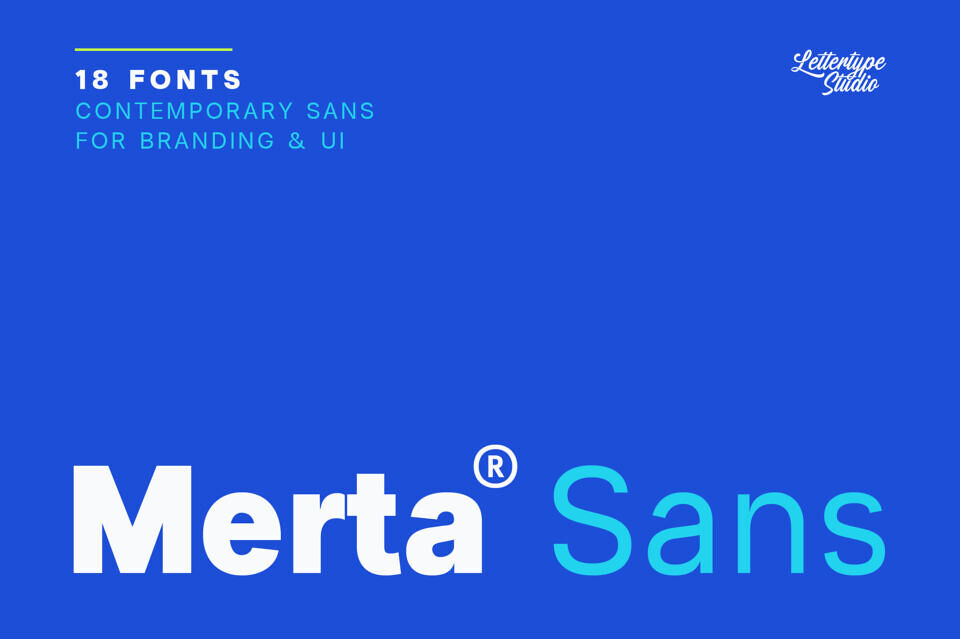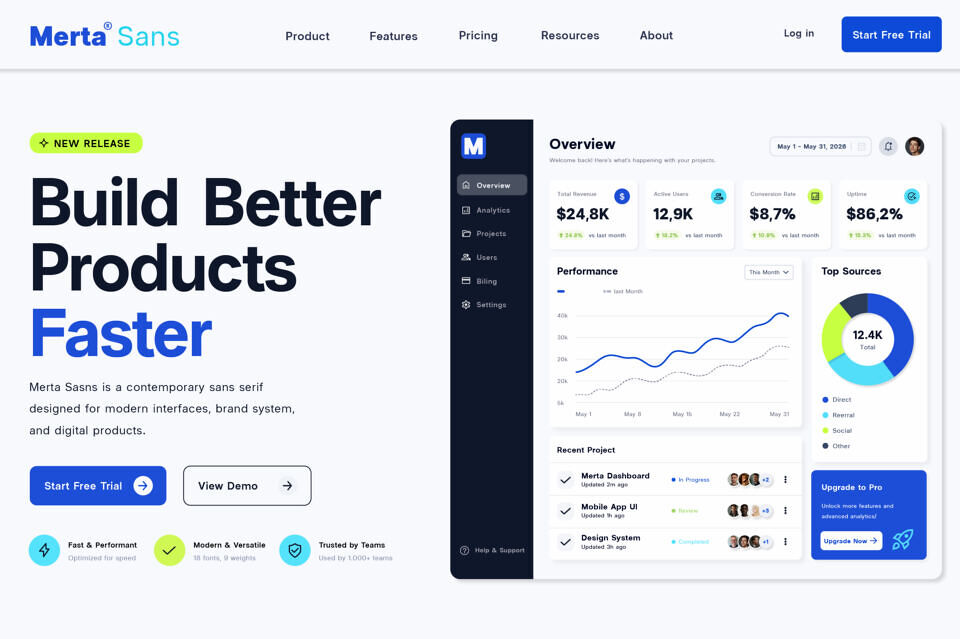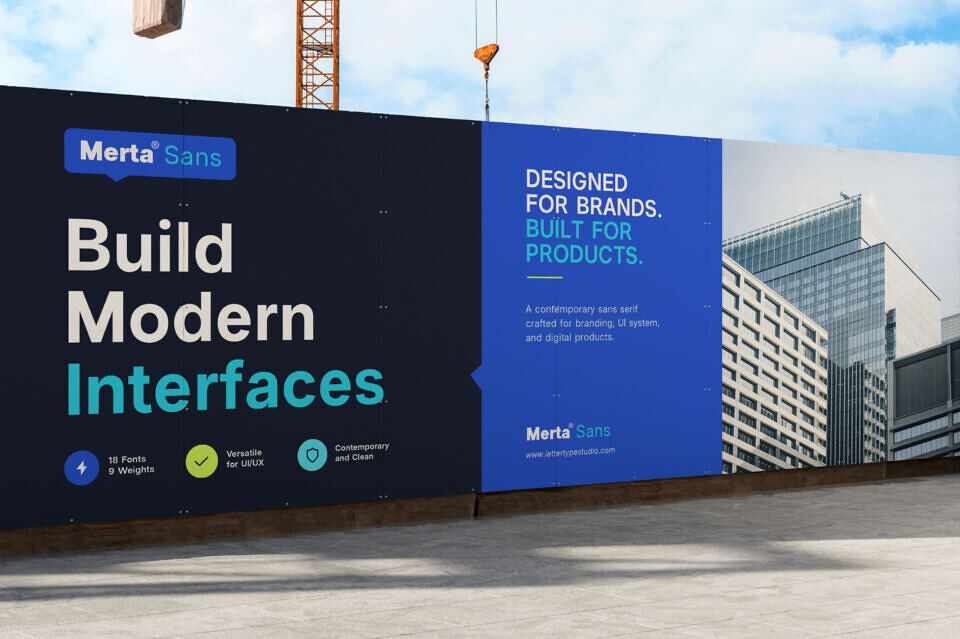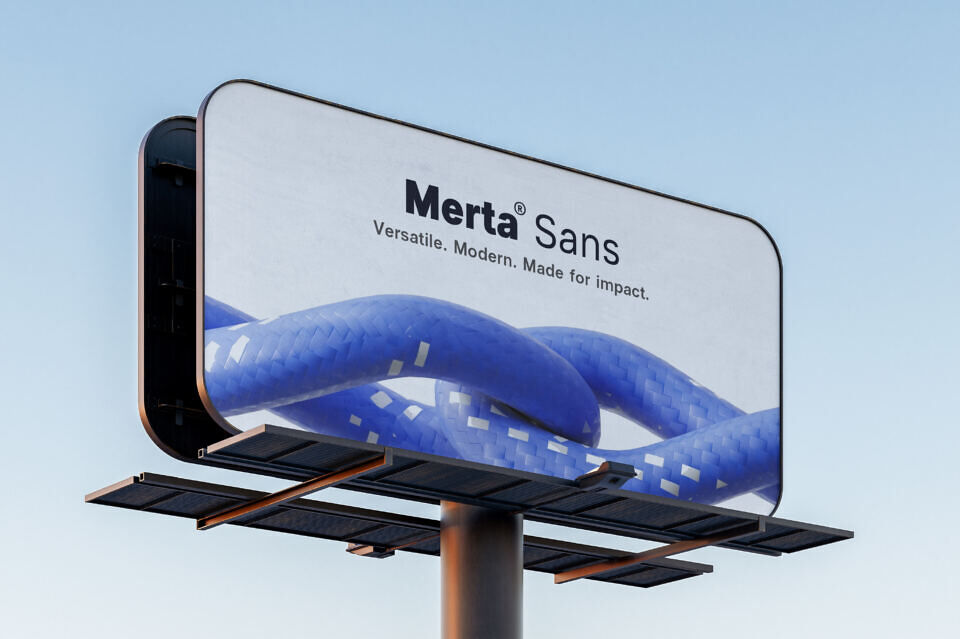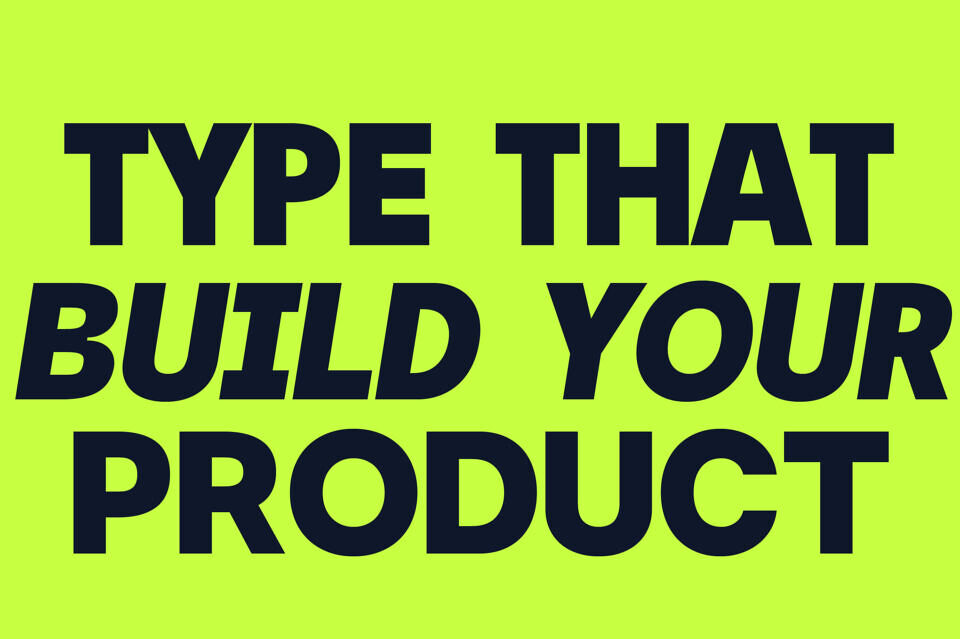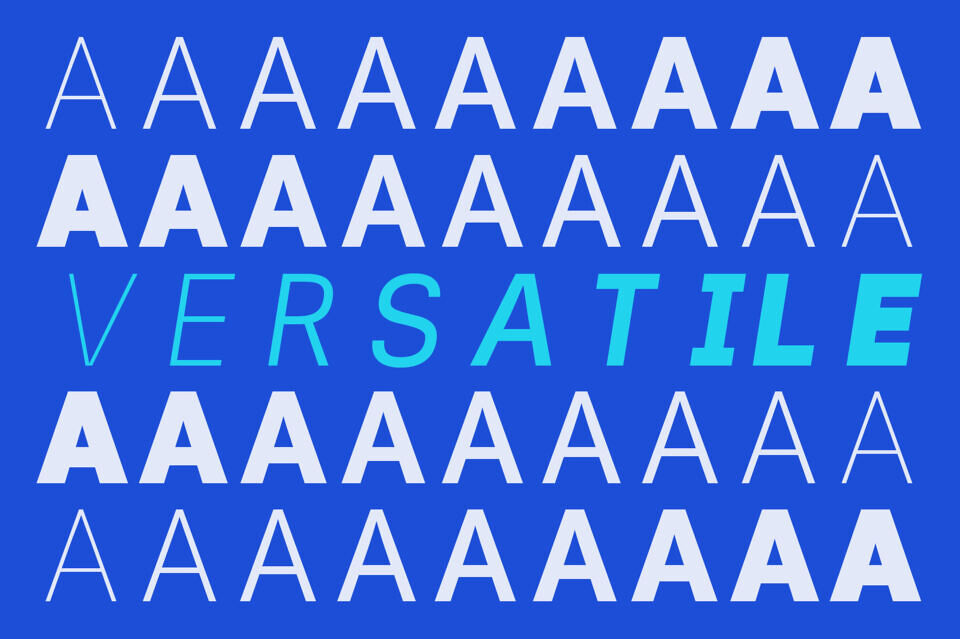
Merta Sans is built for designers working in fast-moving, product-driven environments. Whether you’re designing SaaS platforms, startup identities, or UI systems, this typeface adapts effortlessly to modern workflows.
Unlike rigid neo-grotesk typefaces, Merta Sans introduces a more human and approachable tone through carefully balanced curves and structure. The result is a clean, contemporary sans that feels functional, versatile, and ready for real-world design systems.